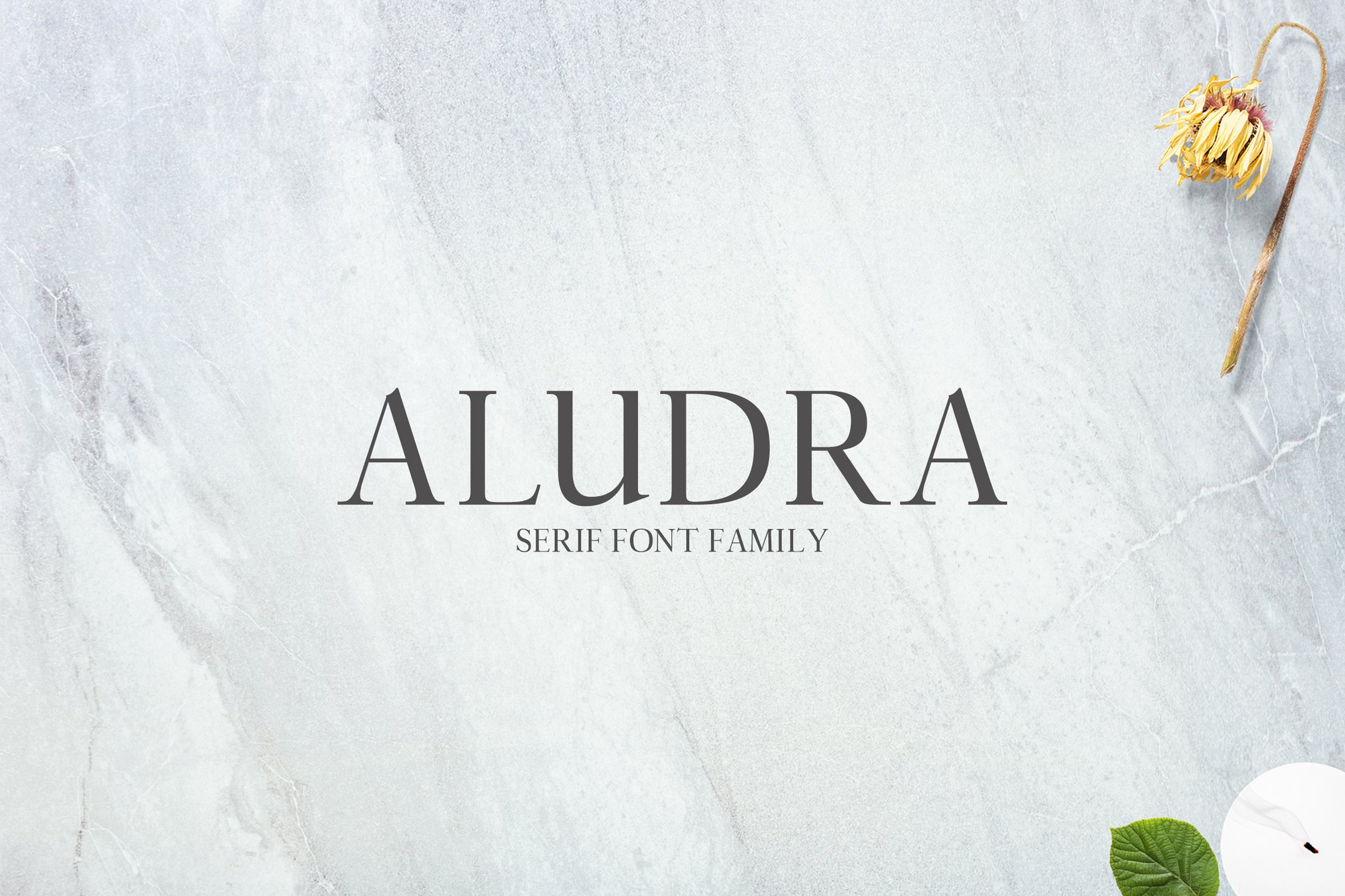
Aludra Font
Aludra Font is perfect for astronomy observatory branding, space exploration companies, celestial event materials, planetarium signage, stargazing equipment advertising, cosmic research institutions, astronomical photography studios, and stellar navigation graphics.
This font is exciting because it radiates stellar magnificence with luminous letterforms that capture the brilliant radiance and cosmic wonder of distant stars burning across the infinite darkness of space. Aludra Font brings celestial sophistication to designs through its stellar structure and astronomical styling that feels like typography forged from starlight and blessed by cosmic forces. The font's stellar character makes it perfect for space-oriented brands and want to communicate wonder, exploration, and the kind of cosmic perspective that connects humanity to the vast universe surrounding our small blue planet.
The Aludra Font family includes Regular, Bold, Light, Stellar, Cosmic, and Celestial variants, each designed to capture different aspects of astronomical beauty while maintaining the font's characteristic stellar appeal and cosmic authenticity. The character set features stellar details that enhance the font's connection to astronomical phenomena and space exploration.
Whether you're creating branding for space enterprises, designing materials for astronomical events, or developing content that needs to project cosmic wonder, Aludra Font Free Download delivers the stellar typography that connects audiences with the infinite beauty and mysterious wonder of the cosmos beyond our earthly boundaries. This remarkable typeface transforms text into stellar transmissions that resonate with the same brilliant energy and cosmic mystery found in the most distant stars, ensuring your message communicates the profound awe and scientific curiosity that drives humanity to reach for the stars and explore the magnificent universe that surrounds us with infinite possibilities and celestial beauty.